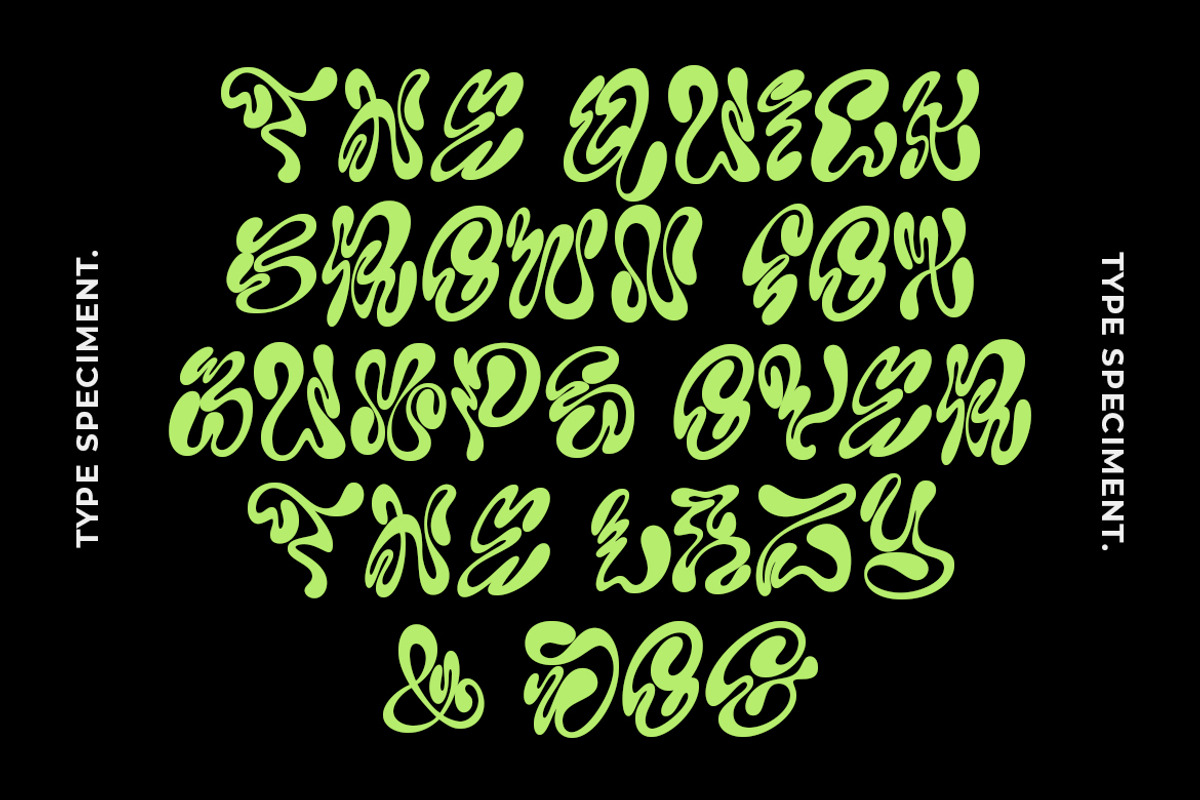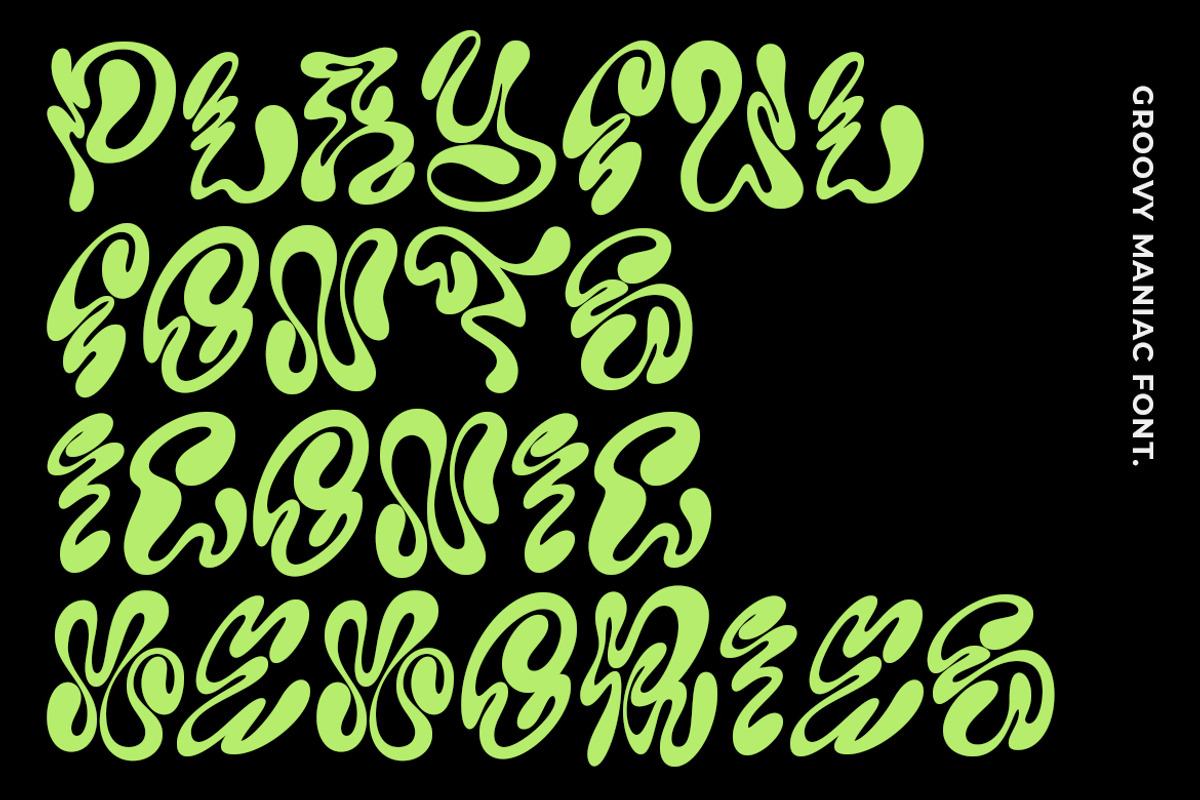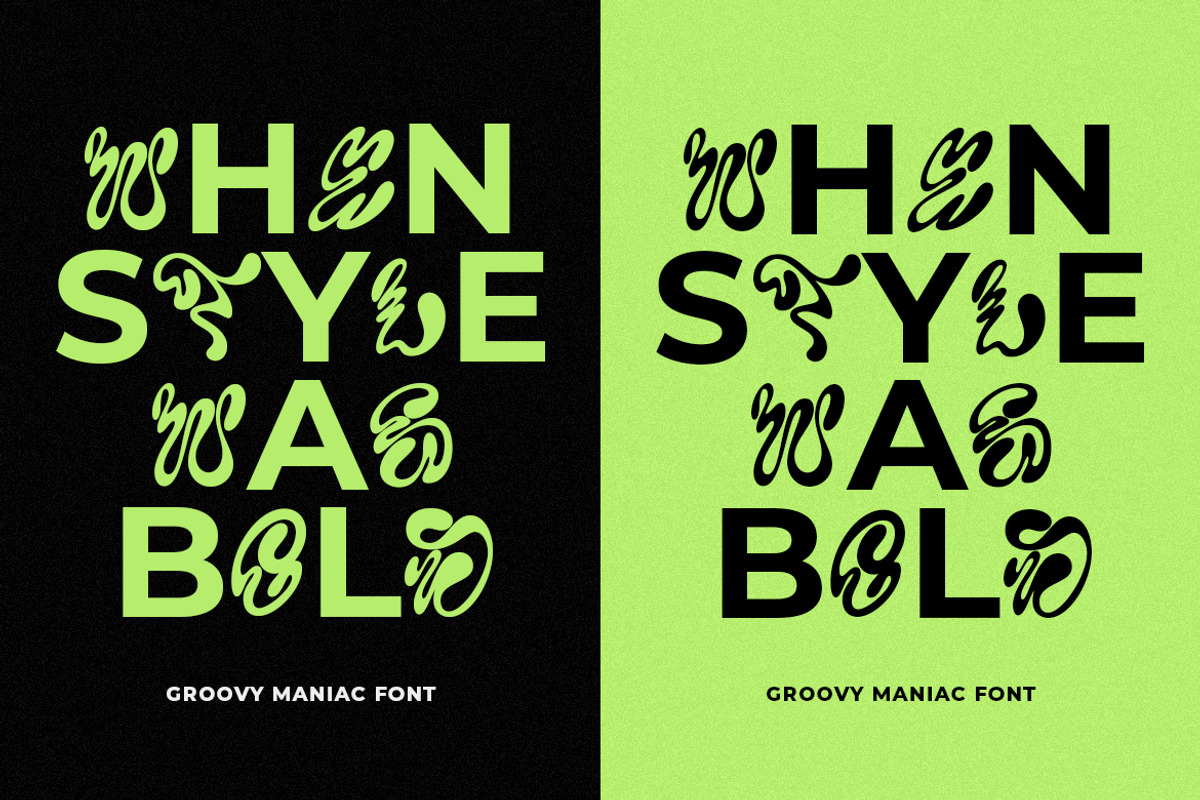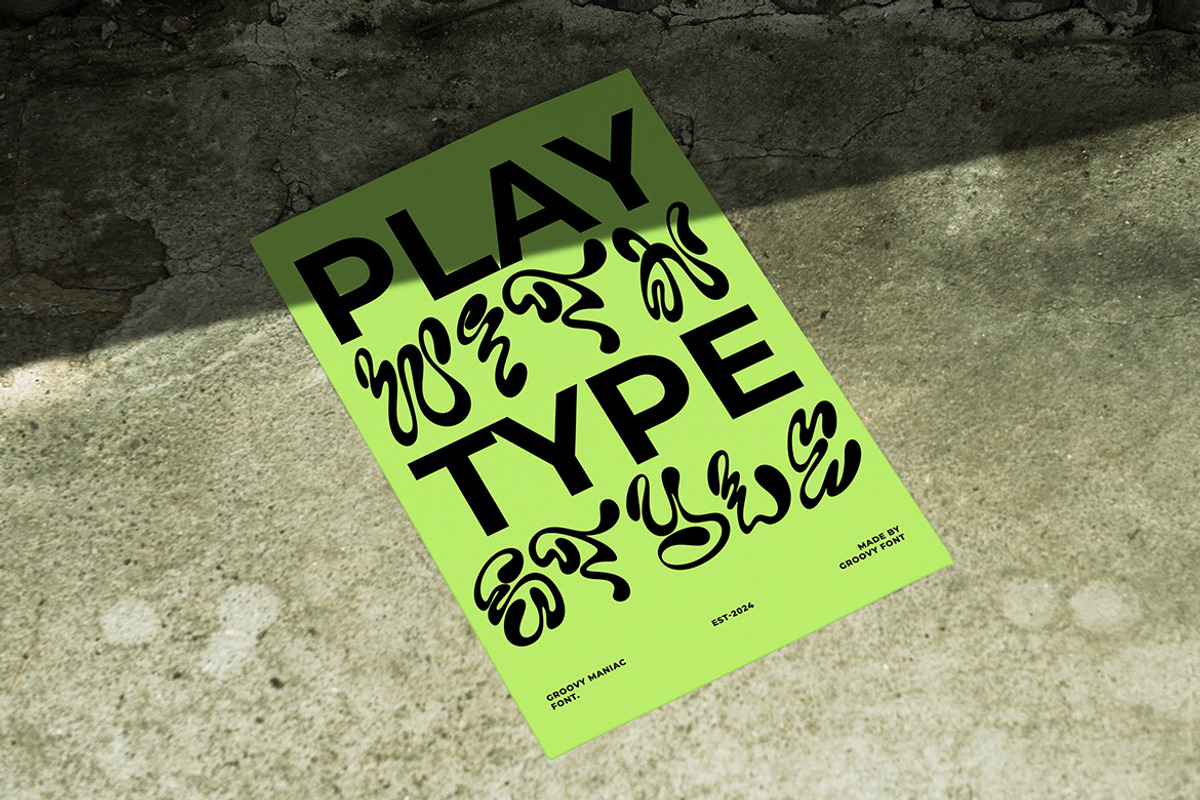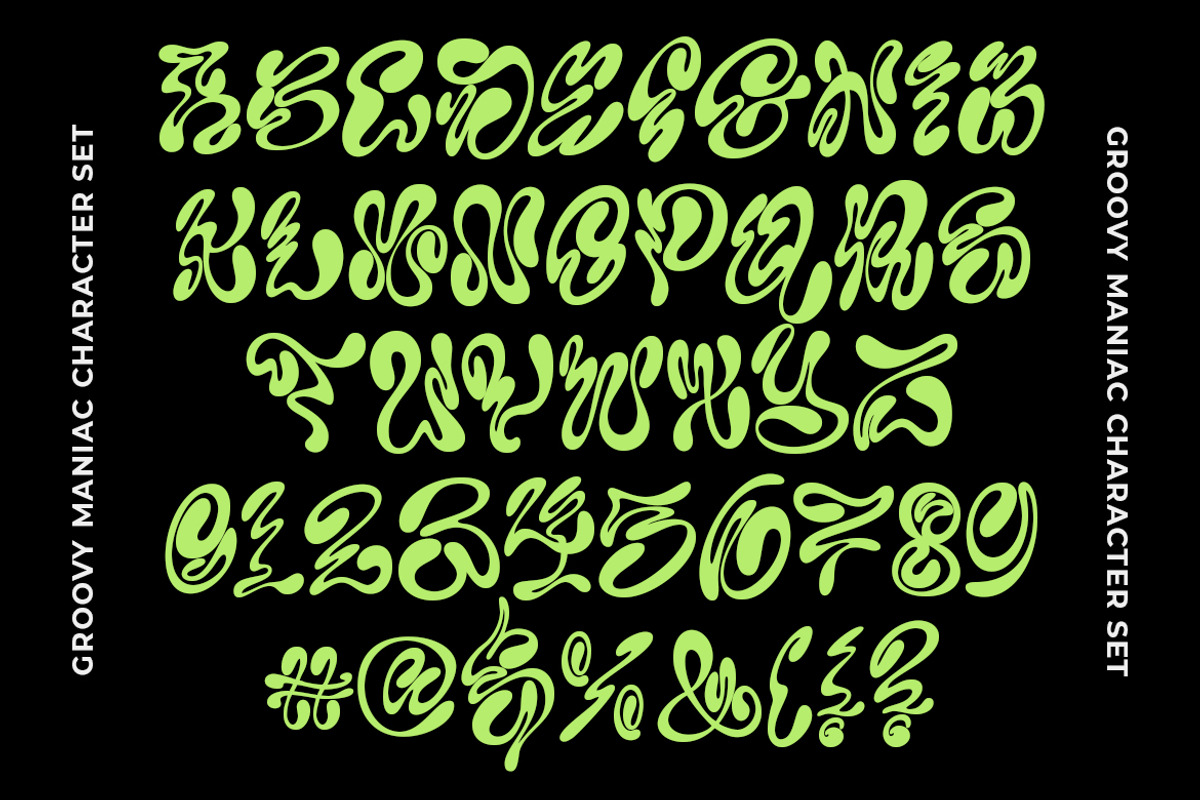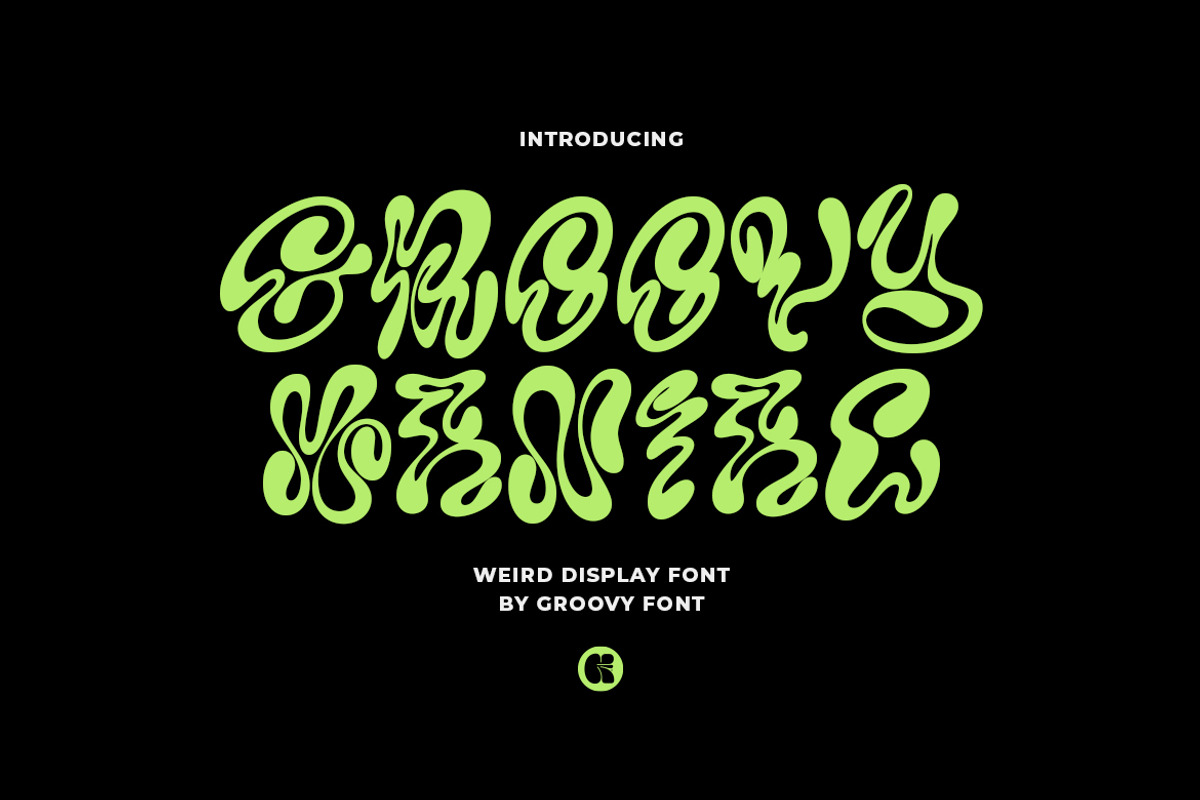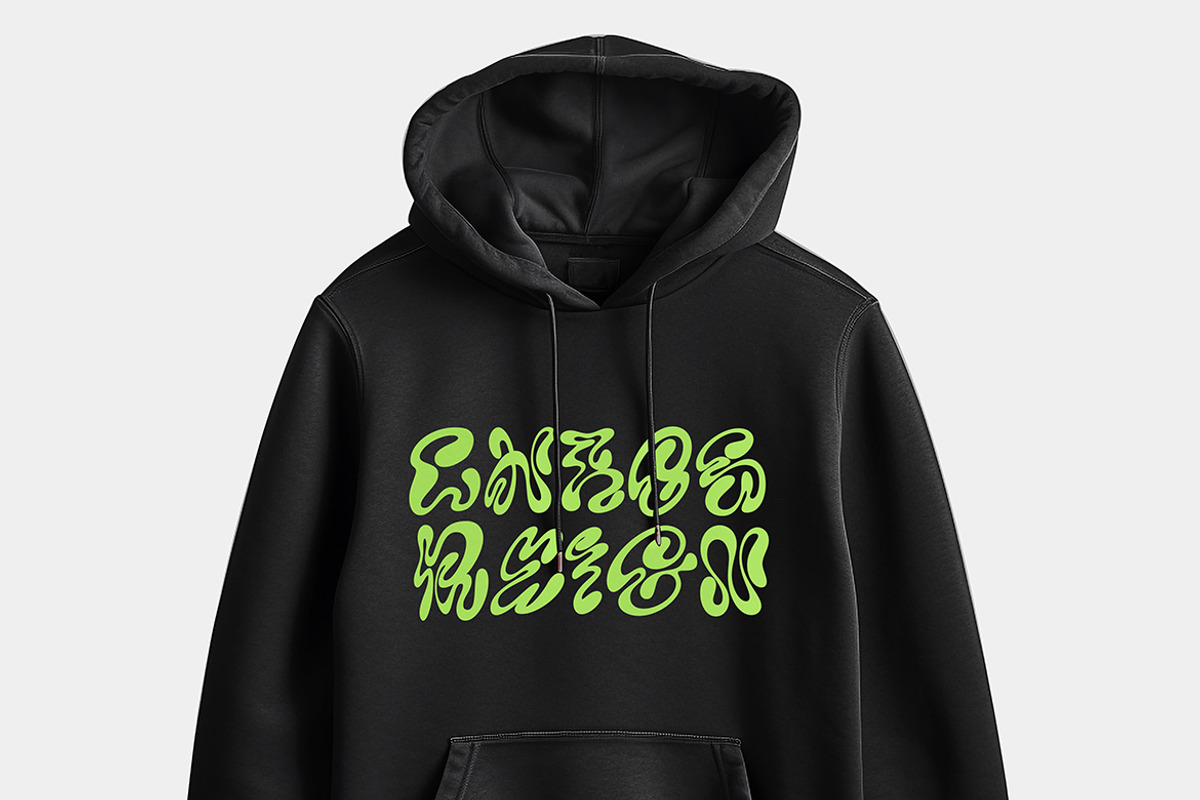
GF Maniac - Weird Display Font
Groovy Maniac is a delightfully weird display font that exudes a distinctive and cheerful feel. This decorative typeface features winding, curved characters that add a playful and unconventional touch to your designs.
With its unique and whimsical charm, Groovy Maniac is perfect for projects that call for a bit of quirky creativity. Let this font bring a sense of fun and individuality to your designs, making them stand out with its one-of-a-kind appeal!